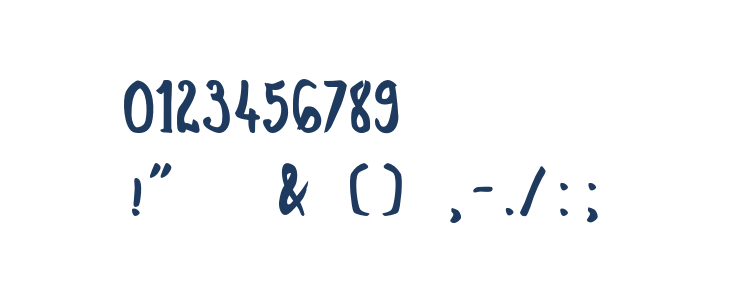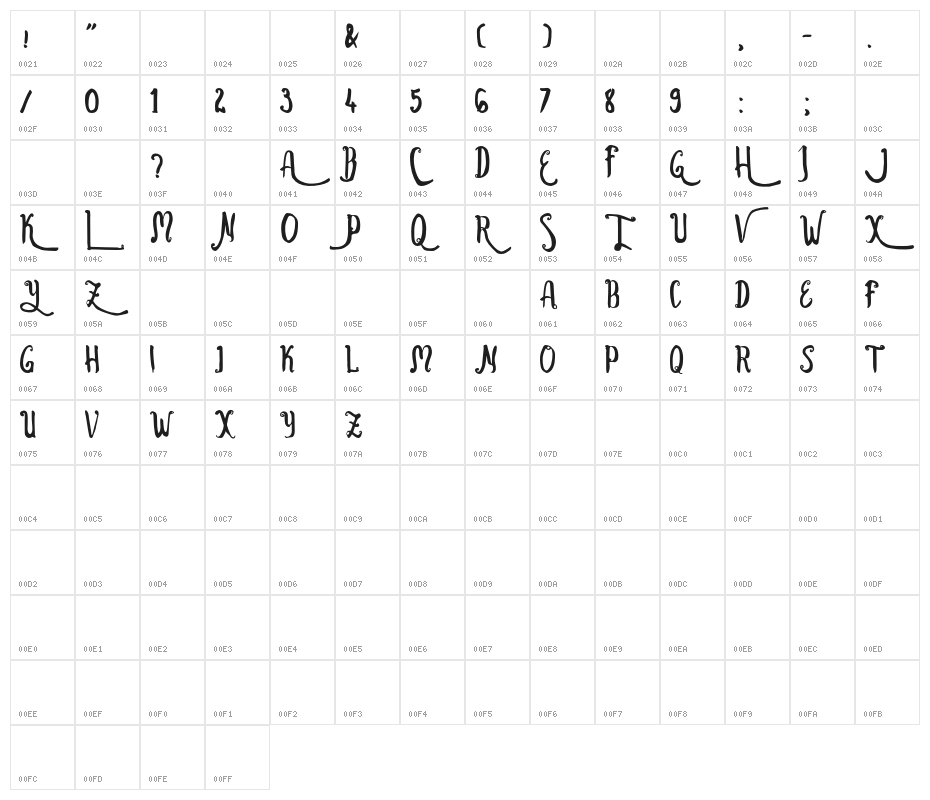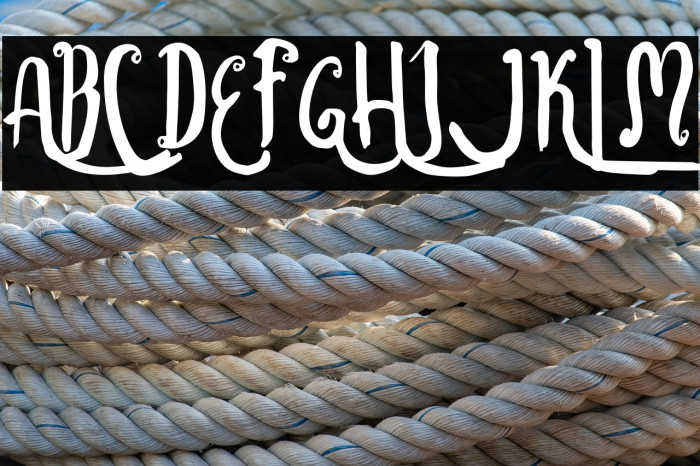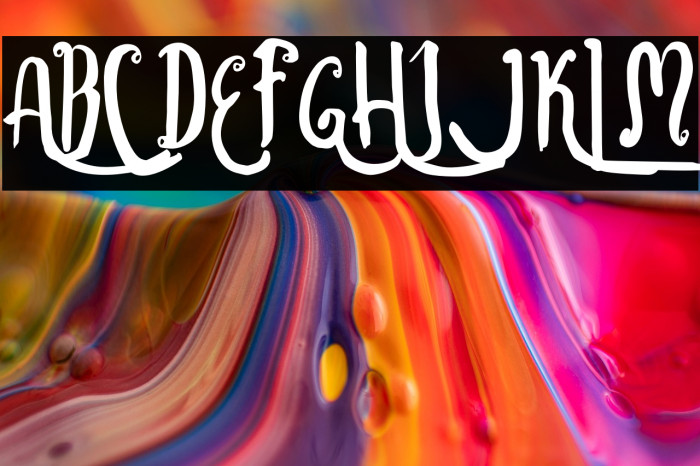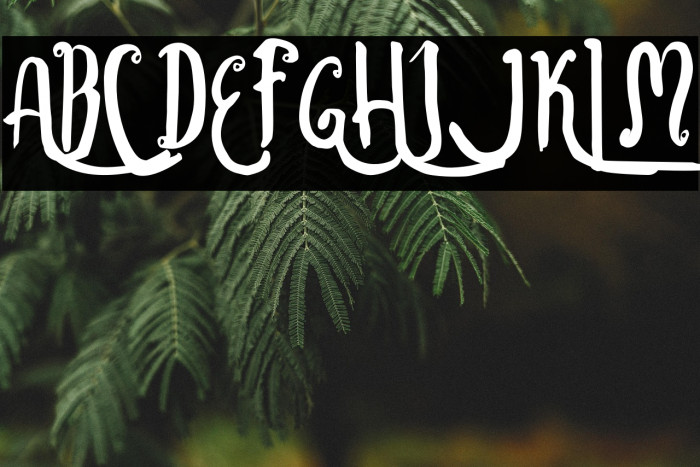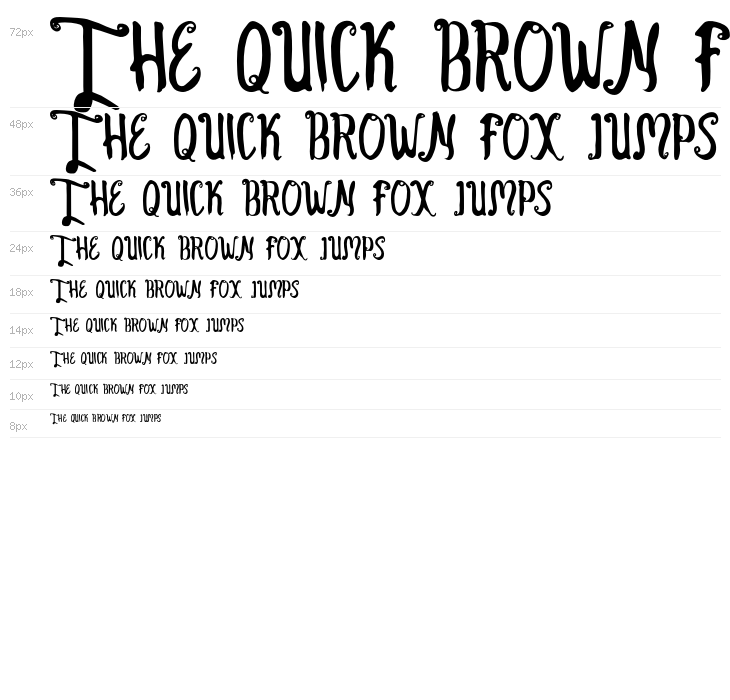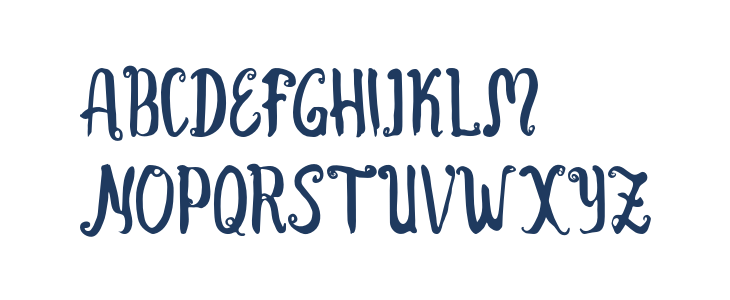
Ballistic Font
Ballistic Description
This font features a whimsical and playful design, characterized by its curly and decorative serifs. The uppercase letters have a unique flair, with exaggerated curves and loops that give them a lively appearance. The lowercase letters maintain this playful style, with consistent strokes and a slightly irregular baseline that adds to its charm. The numbers are bold and maintain the same decorative style, making them stand out. Special characters are also designed with the same attention to detail, ensuring a cohesive look across all elements. This font is perfect for projects that require a fun and engaging aesthetic.
| Overall Style | Playful and Whimsical |
| Proposed Projects | Ideal for children's book covers, playful branding, party invitations, and creative posters. |